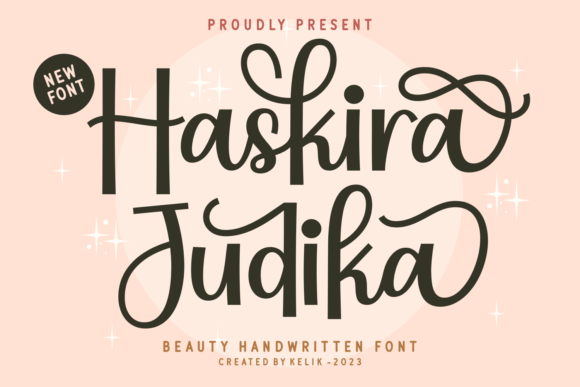
Journey into the Realm of Haskira Judika: A Script Font of Unparalleled Elegance and Luxury
Welcome to the world of Haskira Judika, a script font that exudes sophistication and luxury like no other. Its meticulously crafted letters, adorned with graceful curves and delicate details, create a visual symphony that captivates the senses. Haskira Judika is not merely a font; it's an artistic masterpiece that elevates your designs to new heights of elegance and refinement.
Unleash the Power of Haskira Judika: A Font Designed to Inspire
With Haskira Judika, you hold the key to unlocking a world of creative possibilities. Its versatility knows no bounds, making it the perfect choice for a vast array of projects. Whether you're crafting high-end branding, editorial designs, or seeking to add a touch of glamour to your projects, Haskira Judika stands ready to elevate your vision.
Immerse Yourself in the World of Cinematic Charm: Haskira Judika for Film Scripts
For those seeking the perfect font to capture the essence of a film script, Haskira Judika emerges as the undisputed champion. Its cinematic charm breathes life into your stories, transporting readers into the heart of your narrative. The letters dance across the page, evoking emotions and painting vivid pictures with every stroke.
Embrace the Beauty of Detail: Haskira Judika's Exquisite Craftsmanship
Every letter in Haskira Judika is a testament to meticulous craftsmanship. The delicate curves, the subtle flourishes, and the intricate details combine to create a font that is both visually stunning and remarkably legible. Your designs will exude an aura of sophistication and luxury, leaving an unforgettable impression on your audience.
Discover the Elegance of Haskira Judika: A Font for Timeless Designs
Haskira Judika transcends trends and fads, embodying a timeless elegance that will endure for generations. Its classic beauty will never cease to captivate, ensuring that your designs remain relevant and visually appealing for years to come. Invest in a font that stands the test of time and watch your creative endeavors flourish.
Experience the Ease of Use: Haskira Judika's Effortless Accessibility